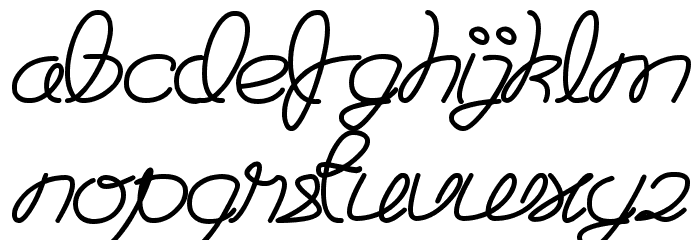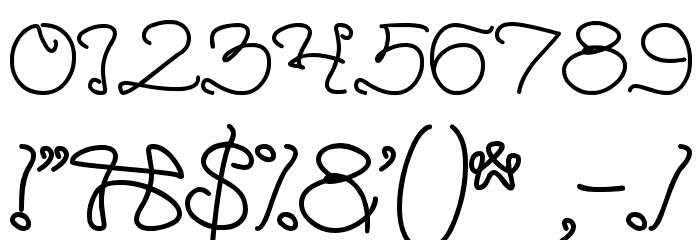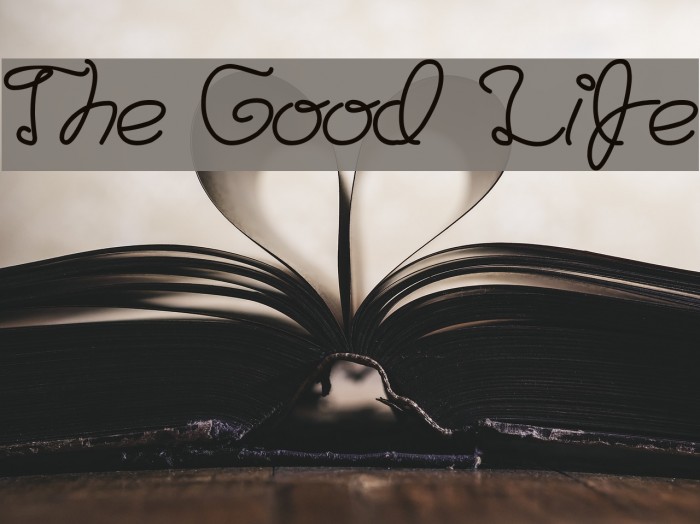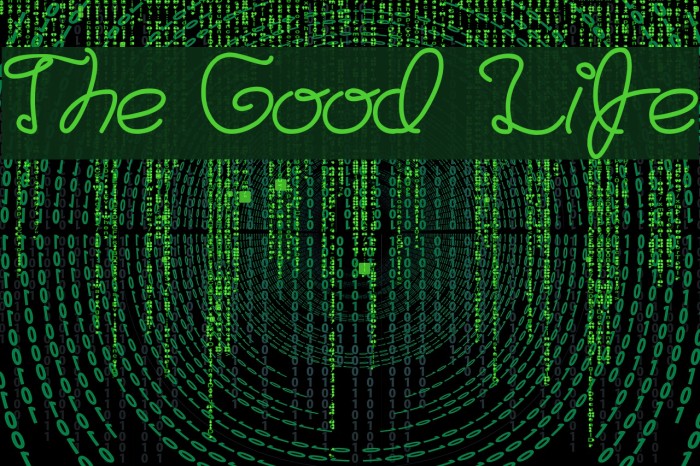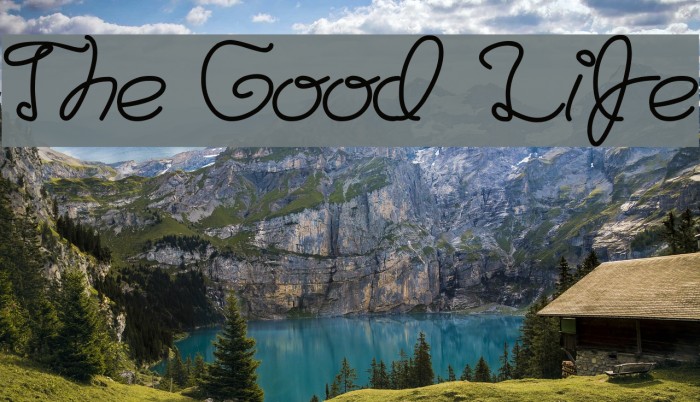
The Good Life Font
This font features a whimsical and playful design with a handwritten style. The characters are interconnected with loops and swirls, giving it a unique and artistic flair. The uppercase letters maintain a consistent height, while the lowercase letters exhibit a more fluid and dynamic form. Numbers and special characters follow the same playful theme, making the font suitable for creative and informal projects. The overall appearance is lively and engaging, perfect for capturing attention.
A whimsical, handwritten font with playful loops and swirls.
- Proposed Projects: Ideal for greeting cards, invitations, children's books, and creative branding projects.